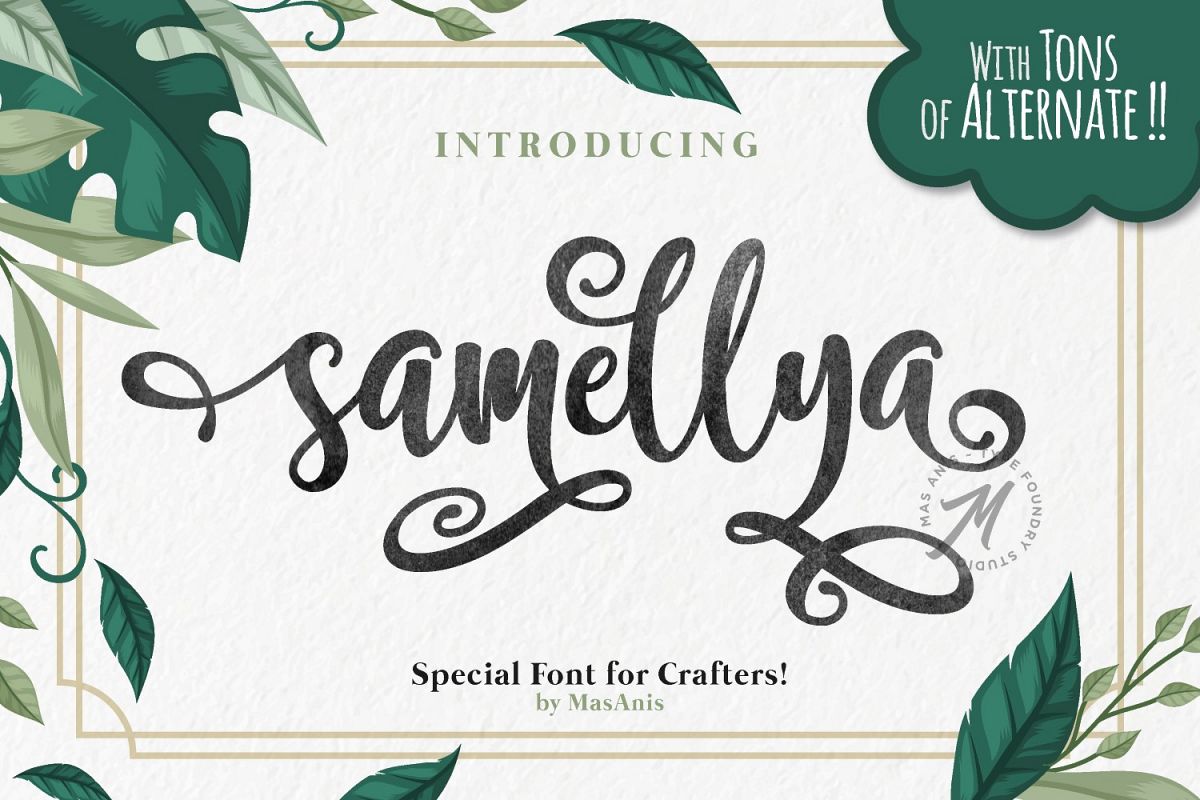
Samellya - Crafter's Font!
Samellya
SamellyaOutline
We would like to introduce our latest font Samellya !
Samellya
is a special made font for all crafters who want some freedom of designing, you can create anything you want with this decorative font, with a lot of swashes and alternates, this font will be great for any design project like merchandise, logo, invitation, quote, social media post, magazine cover, watermark, and many more!!
With this easy to use font, you just need to turn on your imagination, and let the font do the rest!
Samellya also comes with outline style which will give another unique feel for your design.